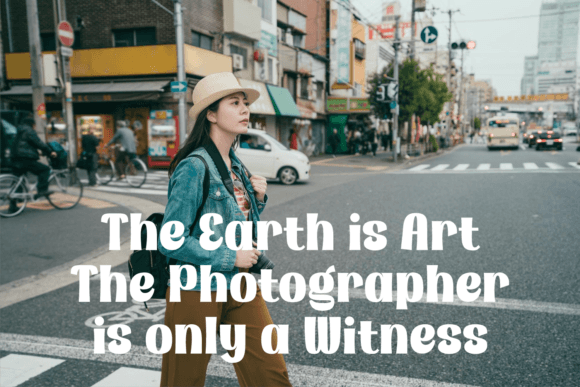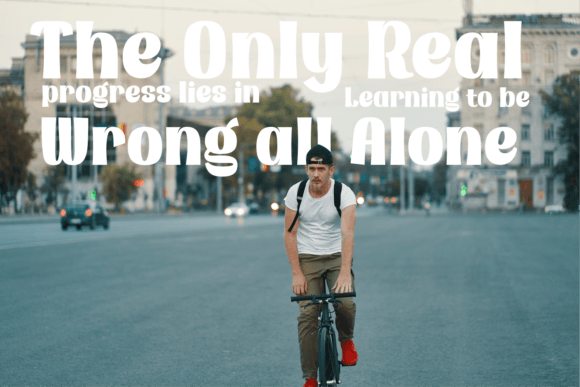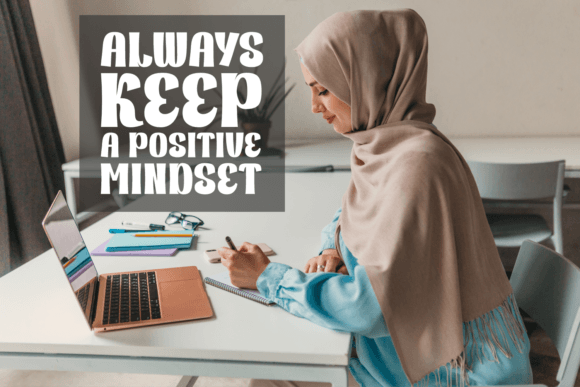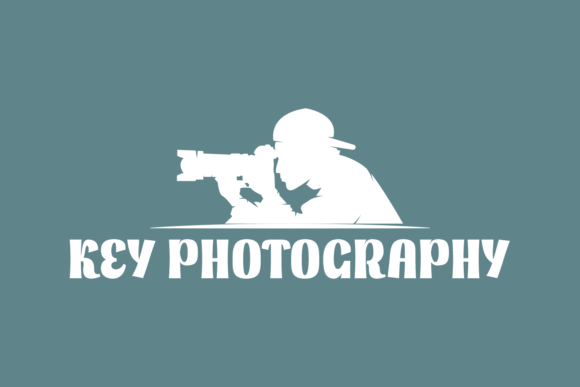
Introduction to Key Story Font Font
Fonts play a crucial role in design, and the Key Story Font font is a typeface that brings both character and versatility to any project. Whether you’re working on a branding project, a website, or a print design, the Key Story Font font offers a unique style that can elevate your work.
Key Story is a minimalist, elegant, and clean serif typeface designed to be used as a display.
It adapts wonderfully in contexts such as designing labels for perfumes, cosmetics, magazine covers, posters, manifests, flyers, social posts, and fashion Use it in your creations so you can notice how it makes your projects become alive.
Key Features of Key Story Font Font
Why Choose Key Story Font Font?
The Key Story Font font is more than just a typeface – it’s a design tool that helps you communicate your message with style and clarity. Its unique character set and versatile design make it suitable for a wide range of applications, from elegant invitations to bold headlines.
With its carefully crafted letterforms and balanced proportions, the Key Story Font font ensures readability and visual appeal across all mediums.
What makes Key Story Font font special?
The Key Story Font font stands out with its unique design, exceptional readability, and versatility across various design applications.